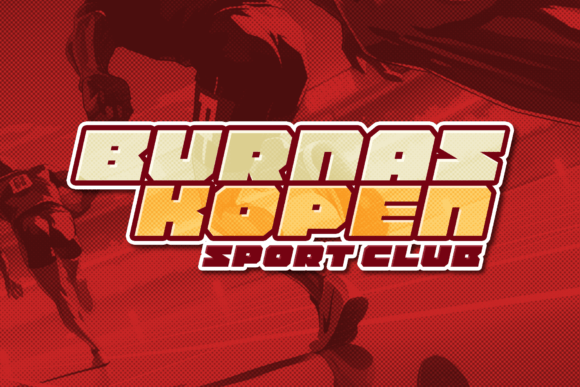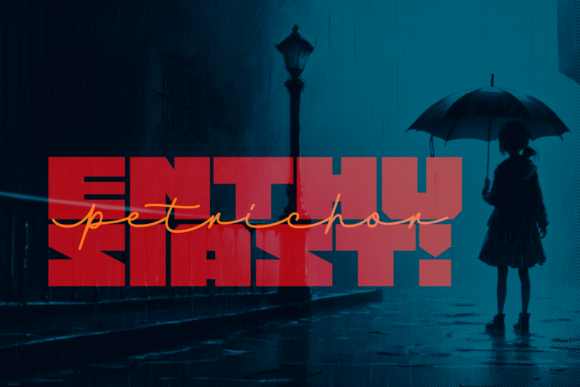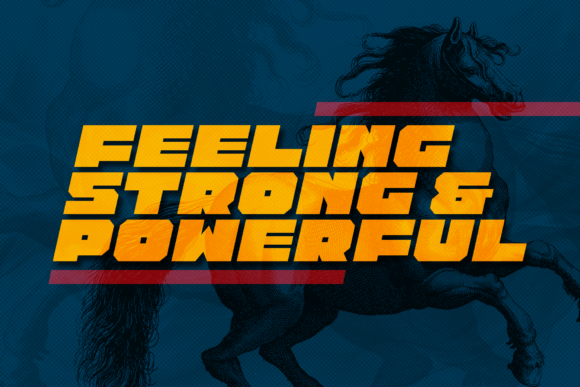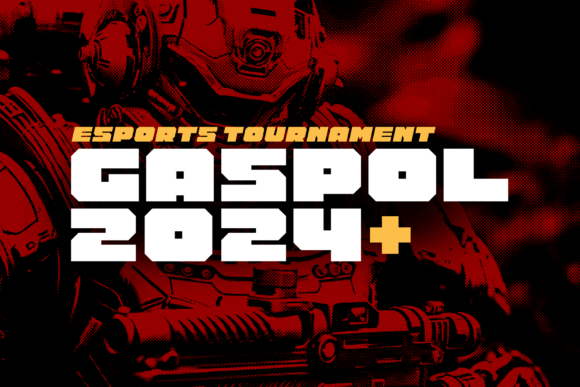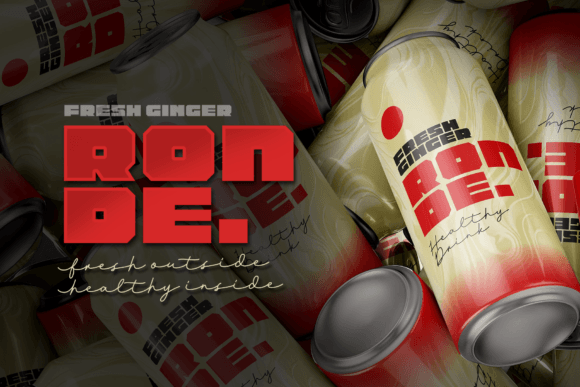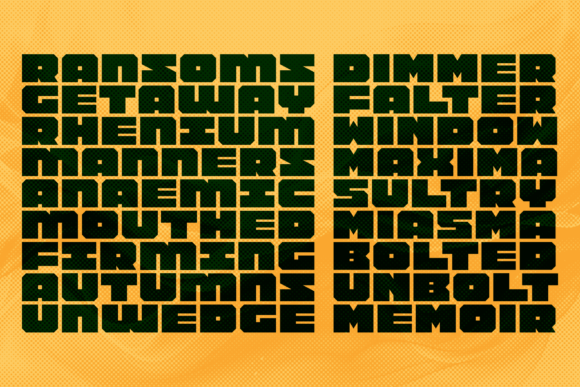
Introducing Fierd Font: The Ultimate Playful Font Duo for Designers and Crafters
Are you tired of using the same old fonts in your designs? Look no further! Fierd Font is here to revolutionize your typography with its unique and playful duo of fonts. This exciting new font combination brings together two distinct styles that will add a bold and eye-catching touch to your creations. In this article, we’ll dive into the world of Fierd Font and explore its features, benefits, and uses.
The Perfect Pair: Bold and Smooth Fonts
Fierd Font consists of two fonts that complement each other perfectly: a bold, square-shaped font with sharp corners and a smooth, signature-style monoline font. The bold font is perfect for making a statement, while the smooth font adds a touch of elegance and sophistication. Together, they create a stunning contrast that will make your designs stand out from the crowd.
Key Features of Fierd Font
- Bold and Smooth Fonts: Fierd Font comes with two distinct fonts that can be used together or separately, depending on your design needs.
- Playful and Unique: The font duo has a playful and unique feel that will add a touch of personality to your designs.
- High-Quality Design: Fierd Font is designed with high-quality craftsmanship, ensuring that your designs look professional and polished.
- Versatile: The font duo is versatile and can be used for a wide range of design projects, from logos and posters to social media graphics and more.
Benefits of Using Fierd Font
So, why choose Fierd Font for your design projects? Here are just a few benefits of using this exciting new font duo:
- Adds Visual Interest: Fierd Font adds a unique and eye-catching touch to your designs, making them more engaging and attention-grabbing.
- Enhances Creativity: The playful and bold nature of Fierd Font inspires creativity and experimentation, helping you to push the boundaries of your design work.
- Perfect for Branding: The font duo is ideal for creating memorable and distinctive brand identities that will set your business apart from the competition.
Design Ideas with Fierd Font
So, how can you use Fierd Font in your design projects? Here are a few ideas to get you started:
- Logos and Branding: Use Fierd Font to create bold and memorable logos that will make your brand stand out.
- Posters and Flyers: Add a playful touch to your posters and flyers with Fierd Font’s unique and eye-catching style.
- Social Media Graphics: Use Fierd Font to create engaging and attention-grabbing social media graphics that will help you connect with your audience.
- Packaging Design: Add a touch of personality to your packaging design with Fierd Font’s bold and playful style.
In conclusion, Fierd Font is a game-changing font duo that will add a unique and playful touch to your design projects. With its bold and smooth fonts, high-quality design, and versatility, Fierd Font is perfect for designers and crafters looking to create standout typography. Whether you’re designing logos, posters, or social media graphics, Fierd Font is the perfect choice for adding a touch of personality and flair to your creations.